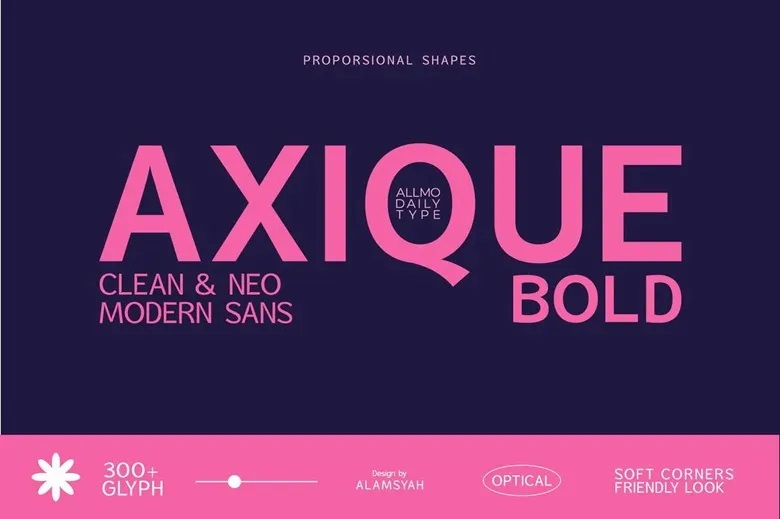
Axique Bold Font
Axique Bold is a clean, modern sans-serif font with balanced shapes and rounded corners. It brings a bold, friendly, and fresh style to your work. This font works well for modern branding, tech startups, UI/UX headlines, posters, editorial layouts, and minimalist packaging that need to stand out with personality.
Its bold, well-balanced letters stay clear and strong at any size. Axique Bold is a great choice for creatives who want both minimalism and modern versatility in their designs.
Axique Bold Sans Serif Font